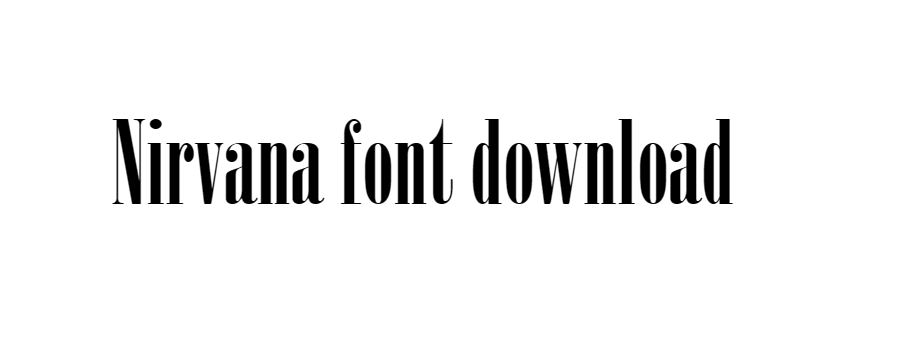
Nirvana
Nirvana is a serif font. Small strokes at the ends of its letters (the serifs) give it a classic, trustworthy look. It's a free download, and you can try it with your own text in the preview above first.
What You Can Type With Nirvana
You get every letter from A to Z in both cases and all the numbers from 0 to 9, which means Nirvana can handle full sentences, dates and prices. Common punctuation such as &, !, ? and @ is included as well. It also has the accented letters you need for Spanish, French, German, Portuguese and Italian.
Where Nirvana Works Best
Think of Nirvana for book covers, magazine headlines and classic branding. Serif fonts shine in headlines and printed text. For long paragraphs on phones, check that it still reads well at small sizes.
Does Nirvana support accented letters?
Yes. Nirvana includes the accented letters needed for Spanish, French, German, Portuguese and Italian, so it works for more than just English.